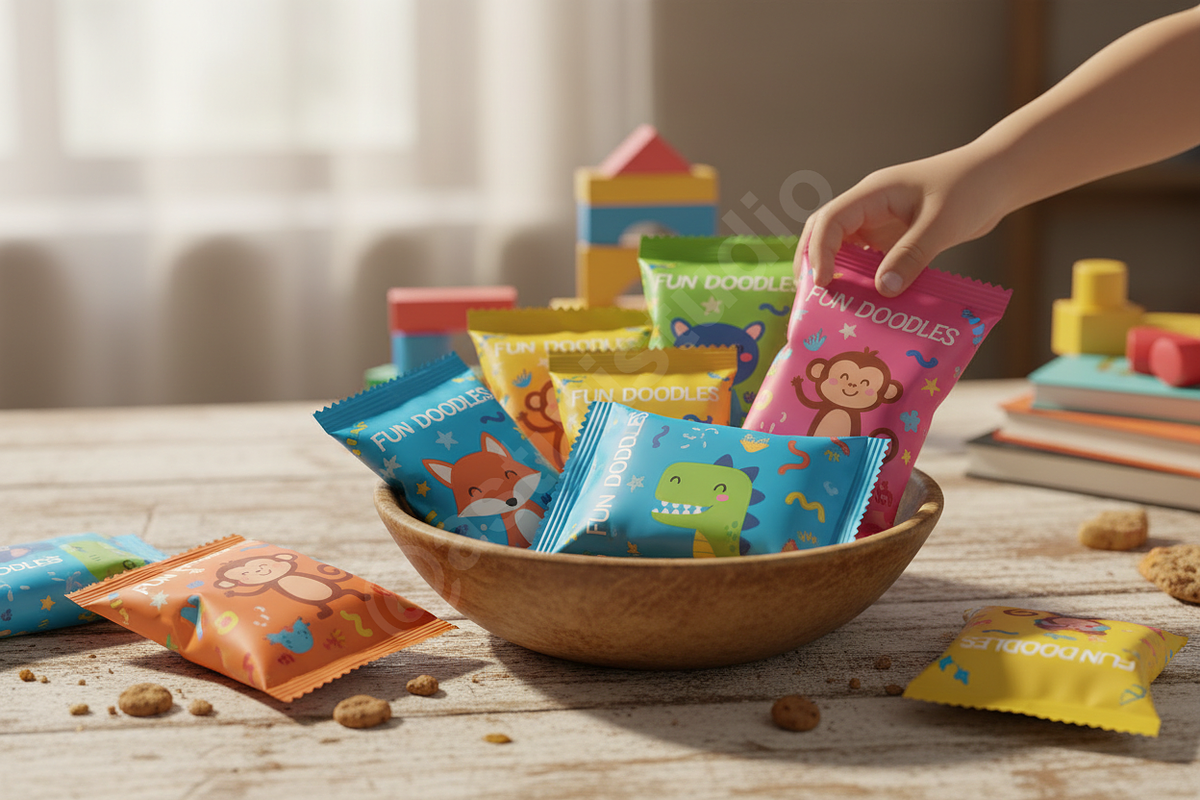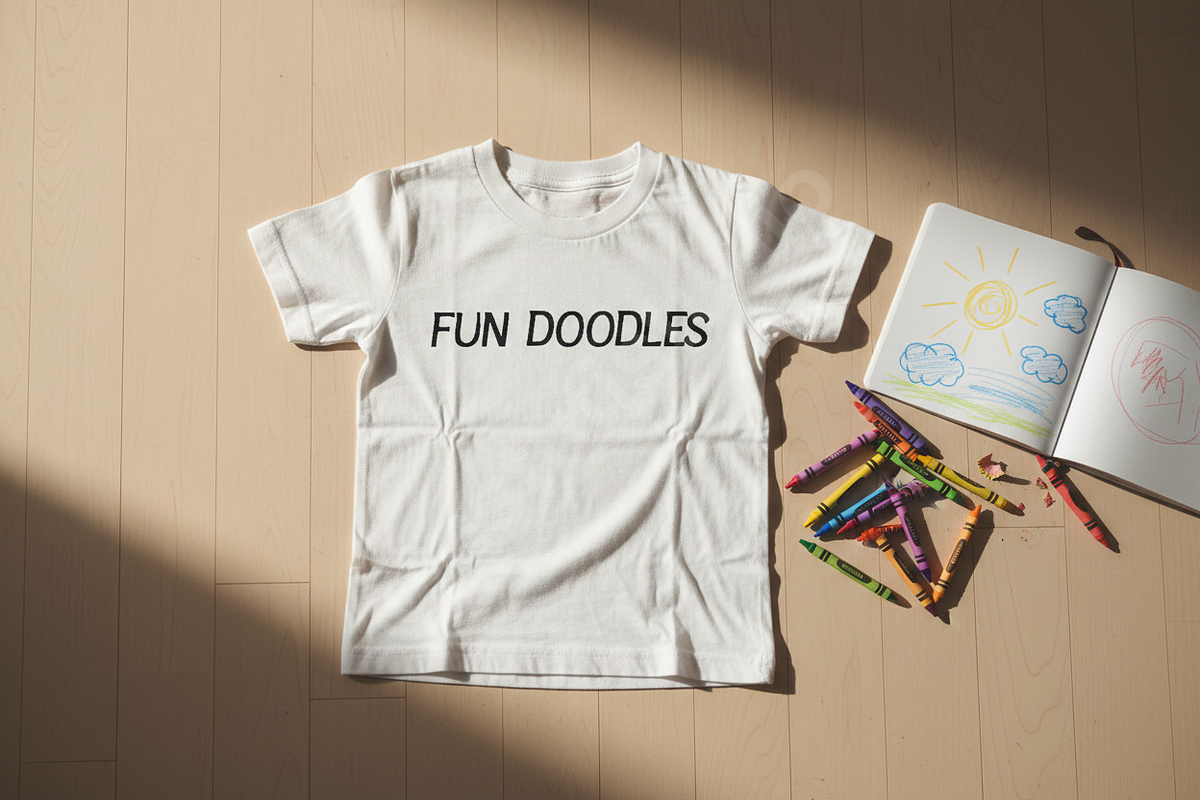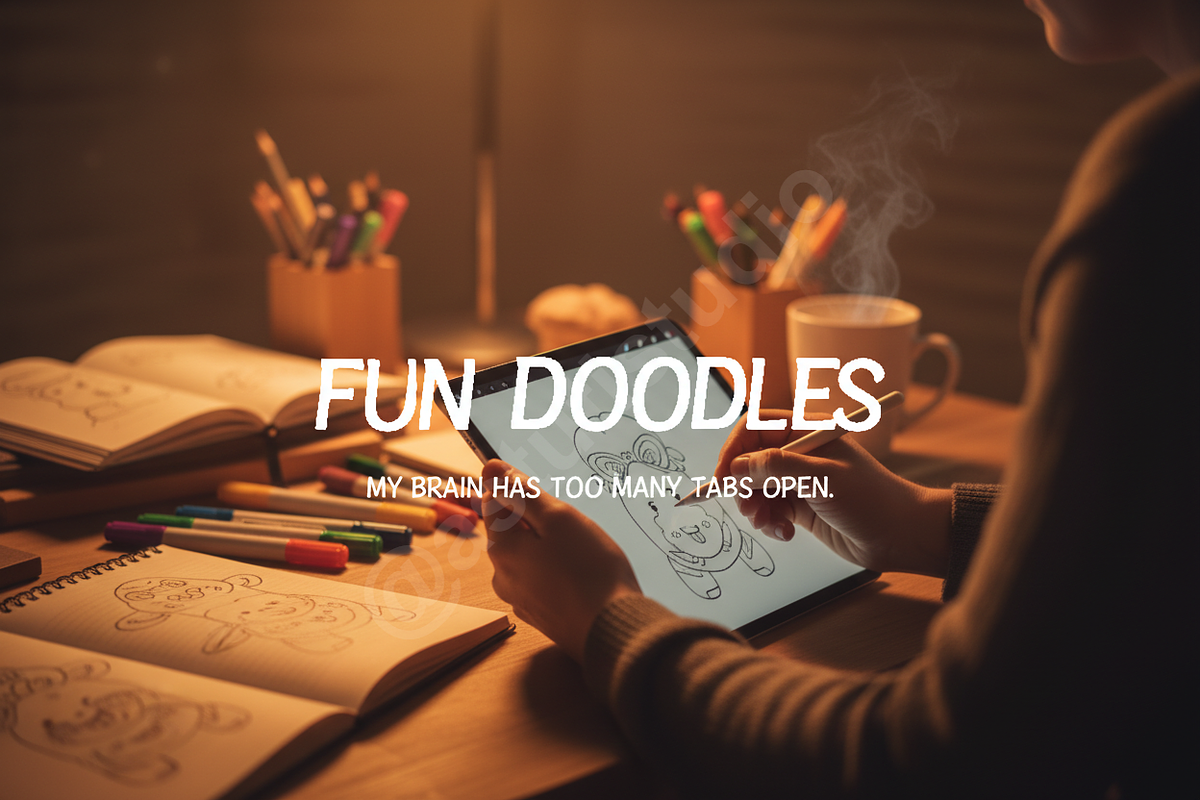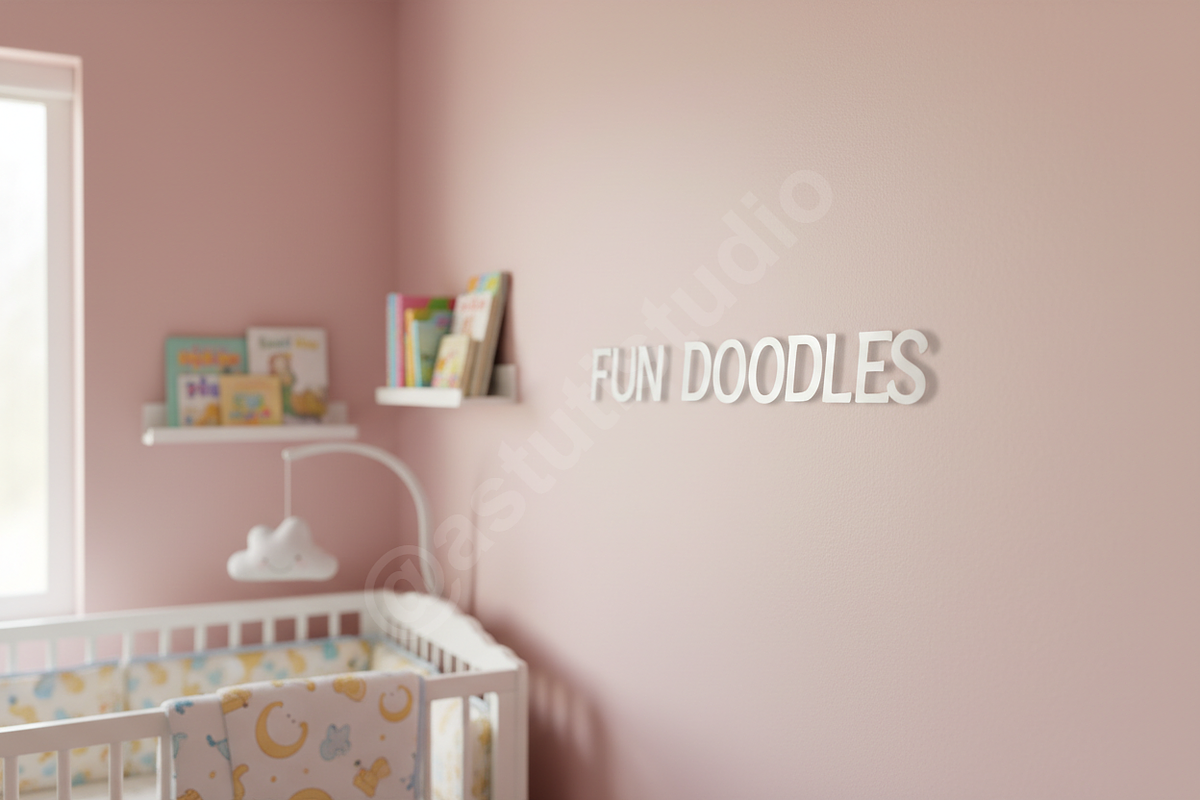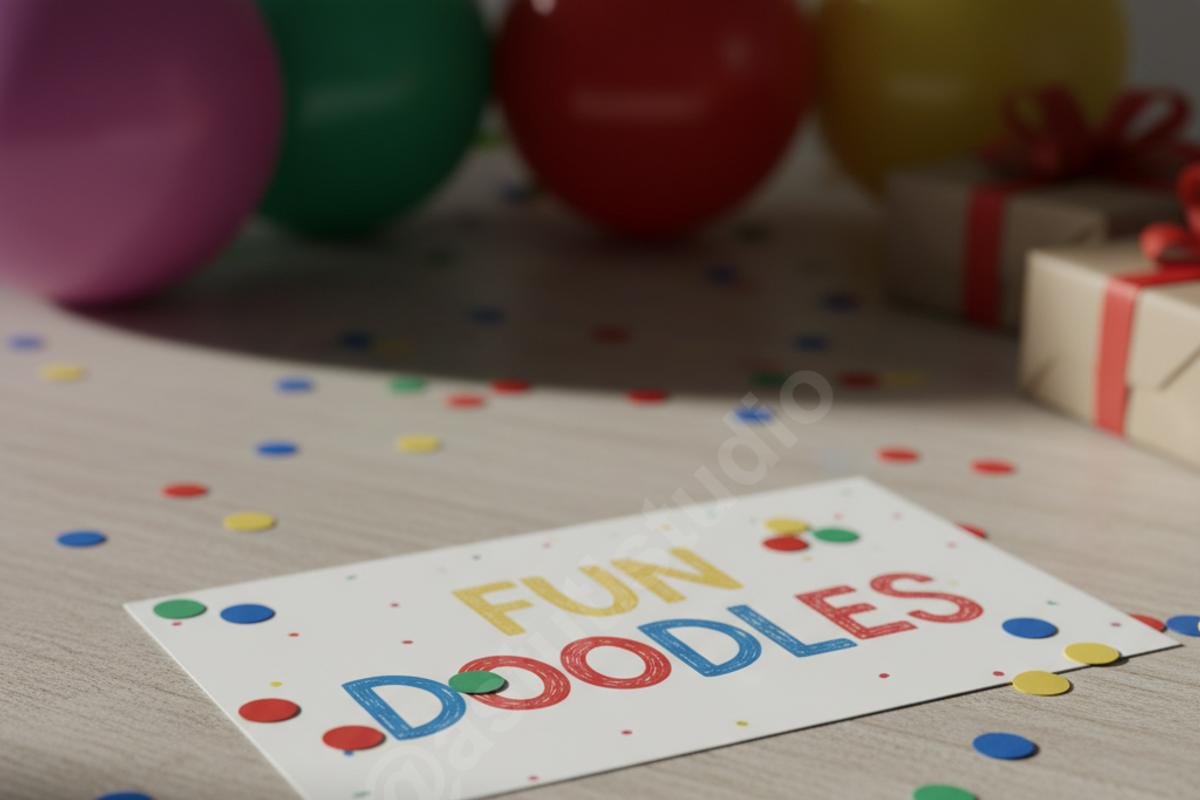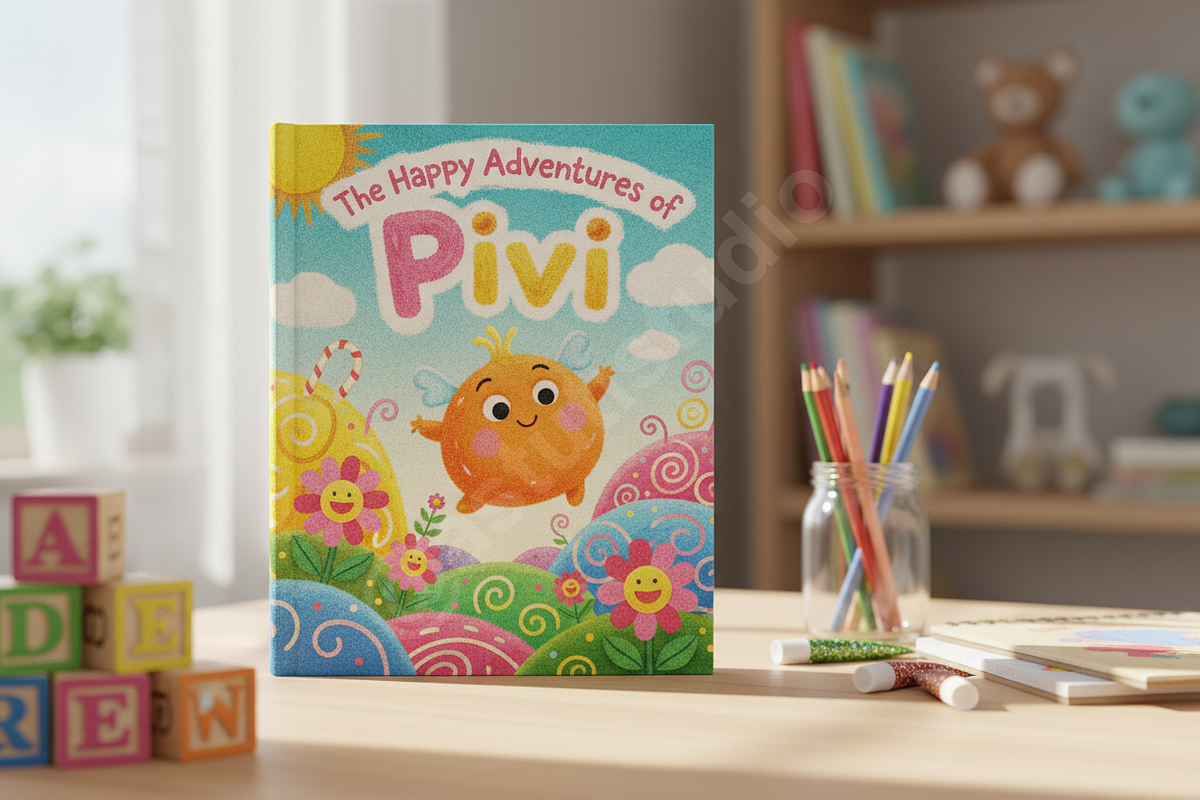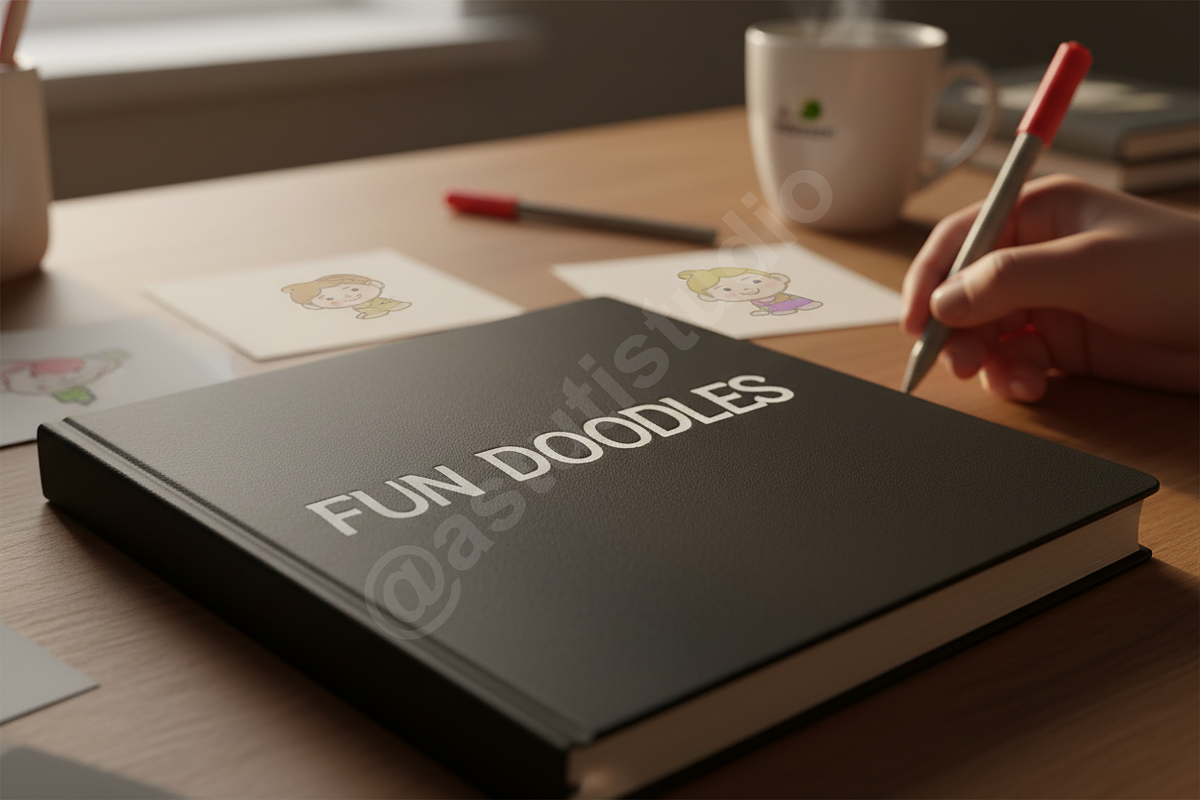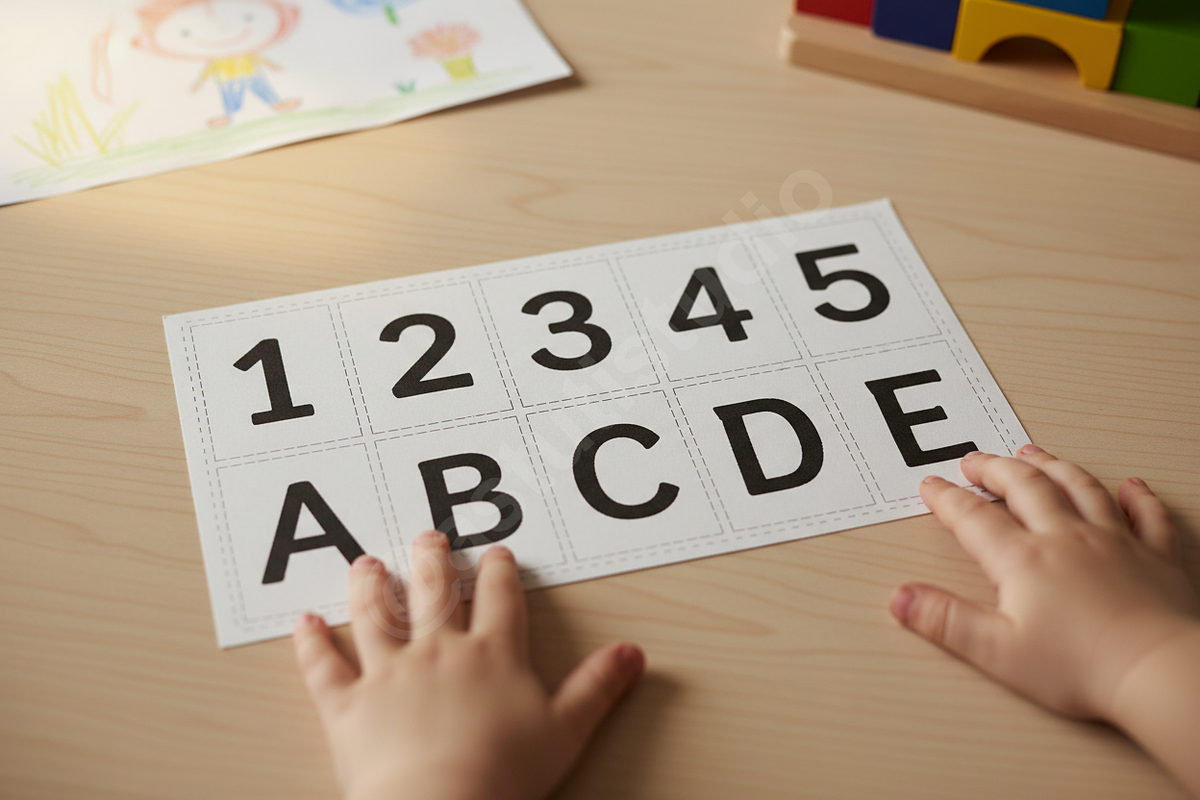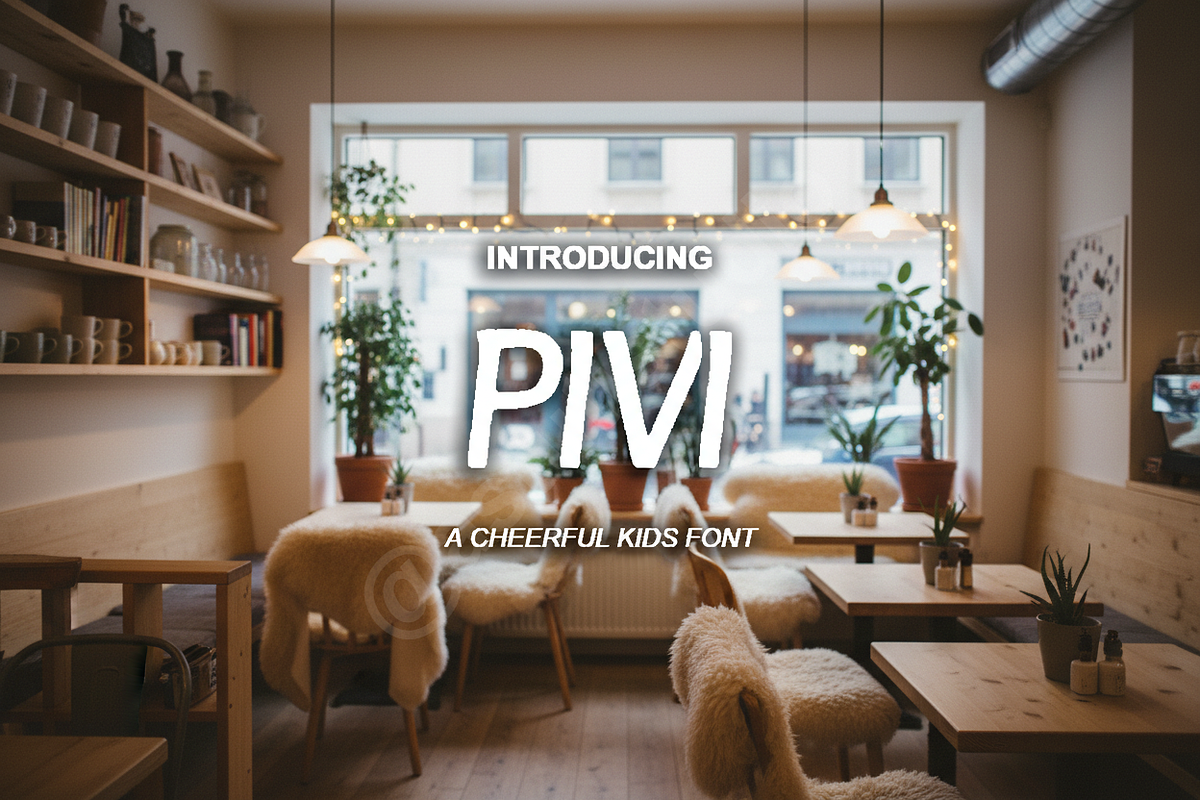
Pivi - A Sophisticated Modern Serif
INTRODUCING PIVI
Pivi is a sophisticated serif typeface meticulously crafted for high-end aesthetics. Merging timeless elegance with modern precision, this font offers a distinct personality that elevates luxury branding, high-fashion editorial design, and curated social media content. Whether you are designing a sleek logo or a multi-page spread, Pivi provides a refined touch that commands attention.
DESIGN FEATURES
- High-contrast letterforms for a premium feel
- Carefully balanced kerning and elegant proportions
- Sharp terminals and graceful curves
- Optimized for both display and body text
- Comprehensive multilingual support for global projects
- Full uppercase and lowercase character sets
- Numerals, punctuation, and standard glyphs